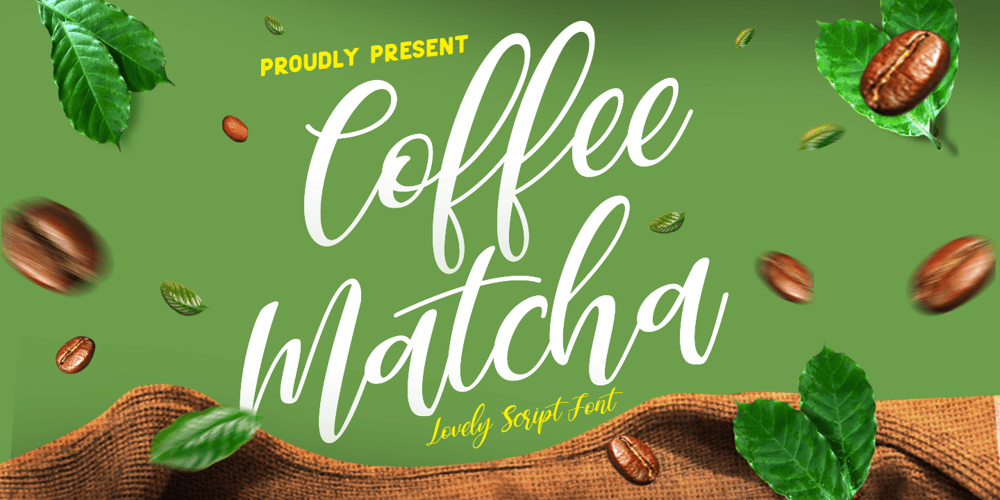
Coffee Matcha Font Family was designed by Riyadh Abuhafs and published by Awan Senja. Coffee Matcha contains 1 styles and family package options. Coffee Matcha is a Lovely script font. It features a modern and elegant style that will take your designs to the next level. Whether you�re looking for fonts for Instagram or calligraphy scripts for DIY projects, Coffee Matcha will turn any creative idea into a true piece of art!